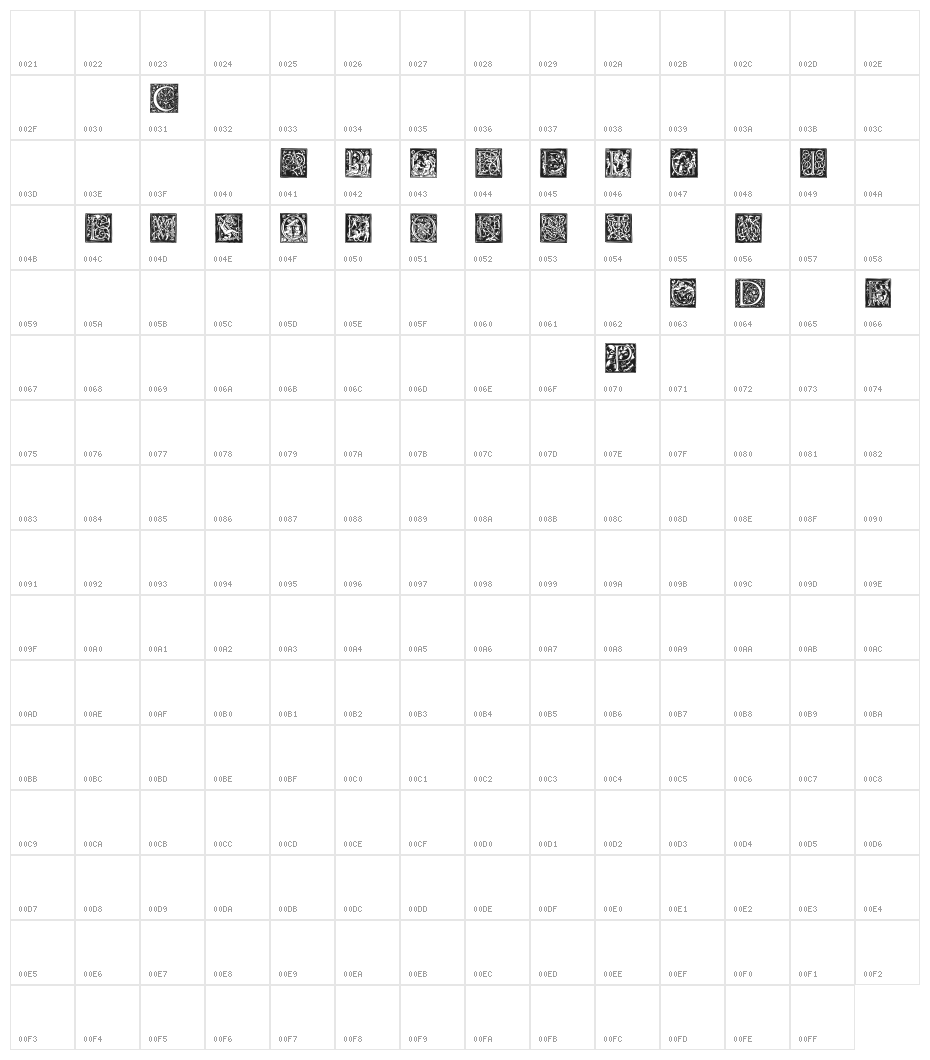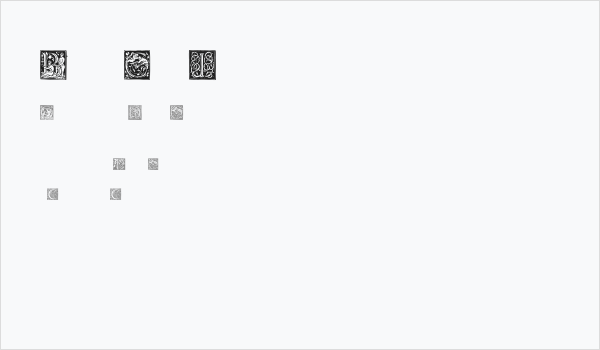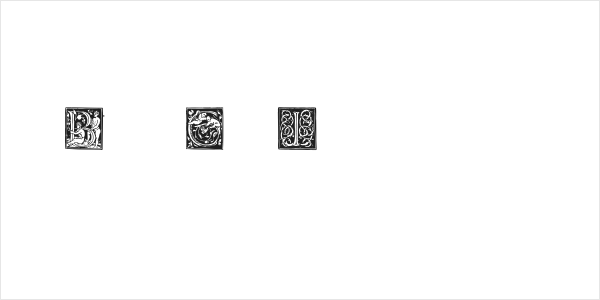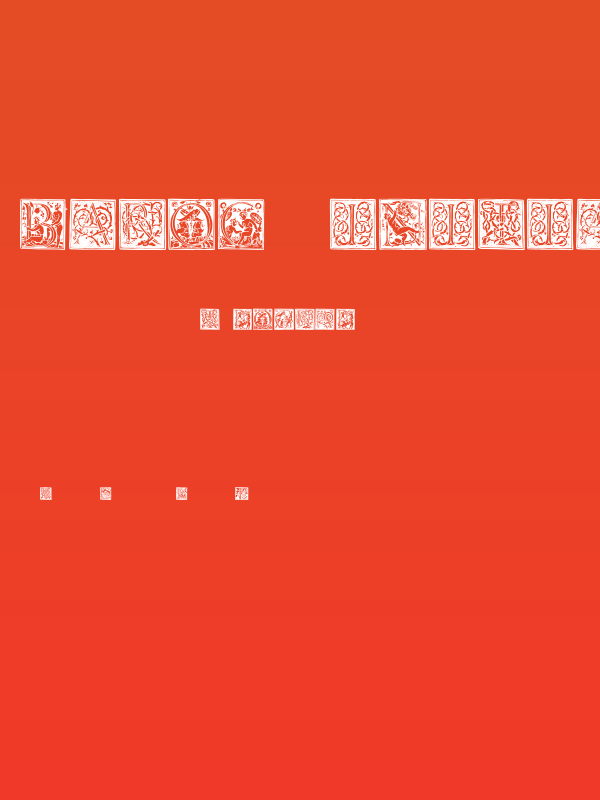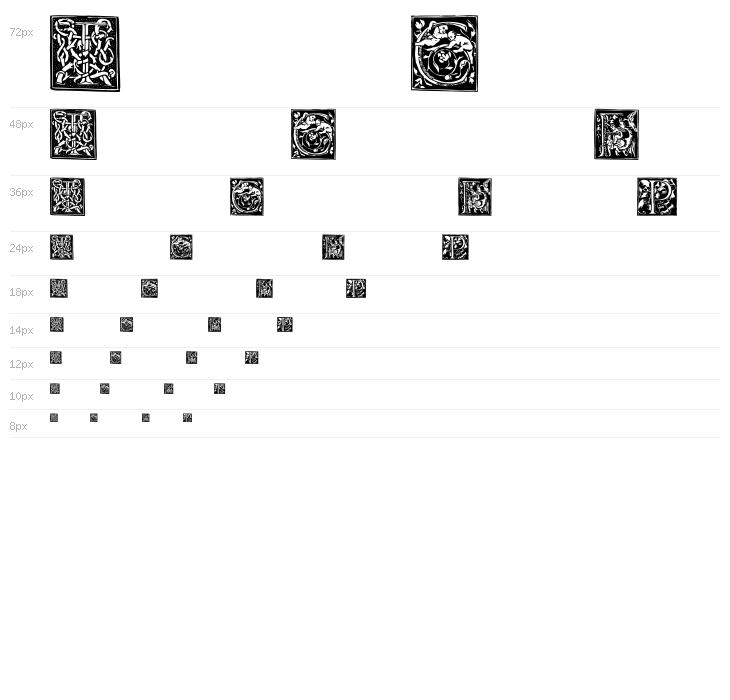
Barock Initialen Font
Barock Initialen Description
This font is a highly decorative and ornate typeface, reminiscent of Baroque art and design. Each letter is intricately designed with elaborate floral and vine motifs, creating a sense of luxury and elegance. The letters are enclosed in square frames, adding a structured and formal appearance. The detailed embellishments within each character make it suitable for decorative purposes, capturing the essence of historical and classical aesthetics. This typeface is not intended for body text due to its complexity but serves as a striking choice for initial caps or decorative elements in design projects.
Overall StyleVintage
Use CaseLogos, Headlines, Decorative elements
Proposed ProjectsIdeal for use in wedding invitations, historical themed projects, luxury branding, and decorative book covers.